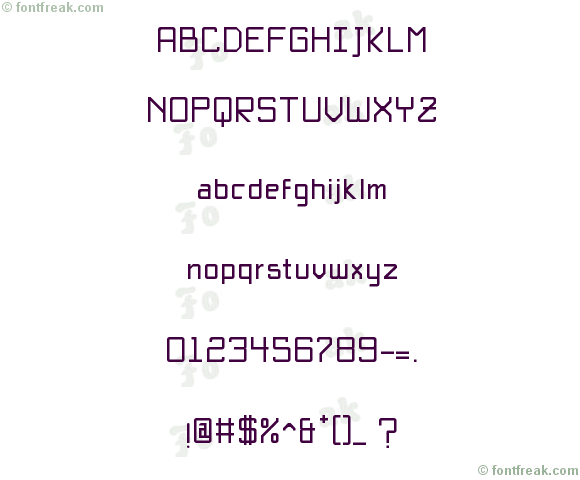
Básica-Unicode Regular
About Básica-Unicode Regular
Básica-Unicode Regular, designed by Juan Casco in 2010, is a striking sans-serif font that captures a modern aesthetic while remaining versatile for various applications. This typeface features clean lines and a geometric structure, providing a sense of clarity and professionalism. With a consistent stroke weight and minimal contrast, it offers excellent readability, making it suitable for both digital and print media. The spacing is thoughtfully designed, ensuring that each letter stands out without feeling cramped, which enhances its legibility across different sizes.
This font is particularly well-suited for a variety of use cases. Graphic designers can utilize Básica-Unicode Regular for modern branding projects, including logos and business cards, where a clean and contemporary look is essential. Small business owners may find it ideal for promotional materials, such as flyers and brochures, where clear communication is key. Content creators can leverage this font for websites and blogs, ensuring that their text is both engaging and easy to read. Moreover, it can be effectively used in restaurant menus, providing a chic yet approachable feel that appeals to patrons.
The target audience for Básica-Unicode Regular includes graphic designers, small business owners, and content creators who seek a reliable and stylish font that enhances their projects without overwhelming the overall design. What makes this font stand out is its balance between simplicity and elegance, allowing it to blend seamlessly into various styles while maintaining its unique character. For those looking to elevate their design projects, the Básica-Unicode Regular font free download is an excellent choice that offers both functionality and aesthetic appeal.